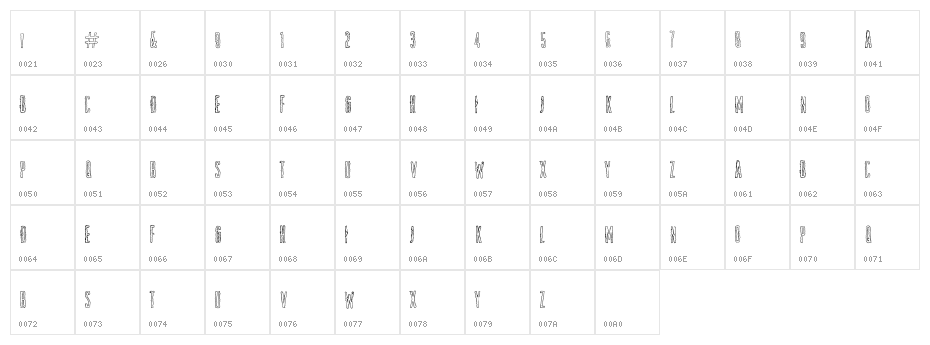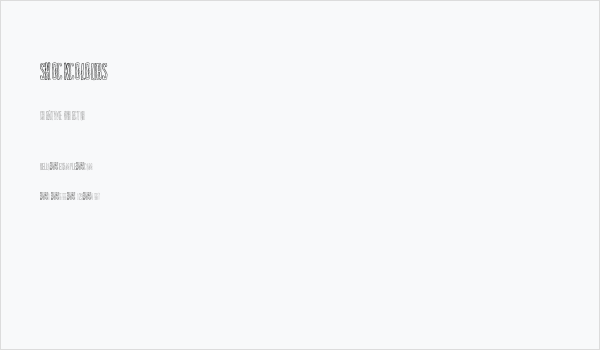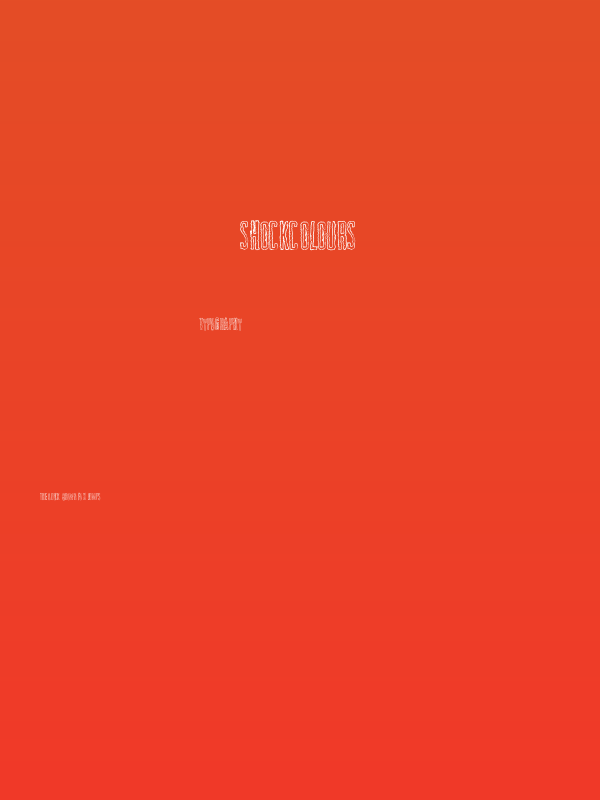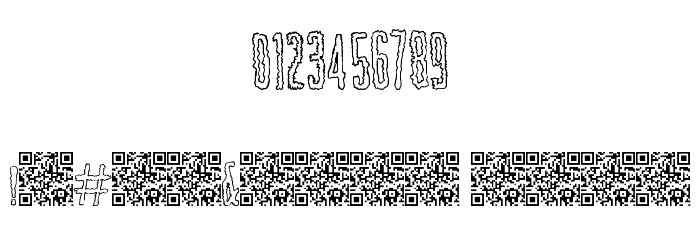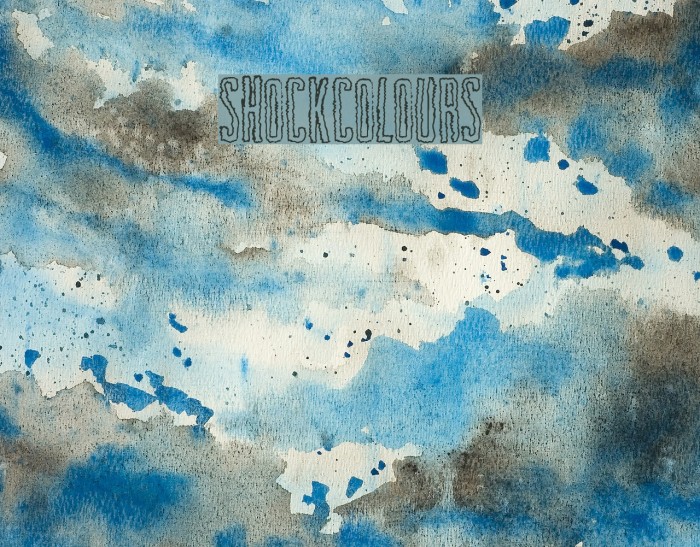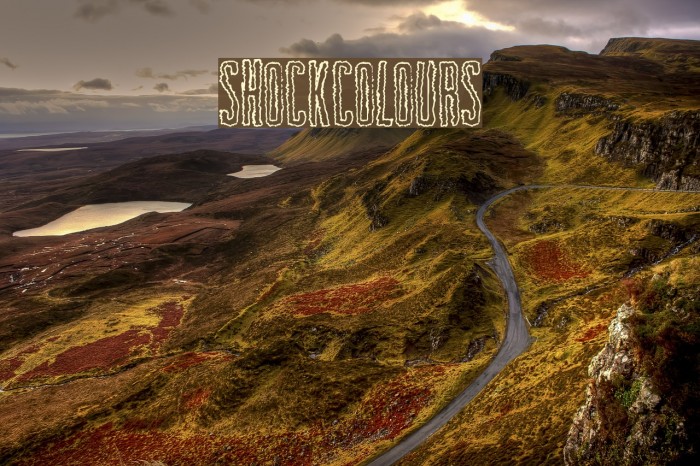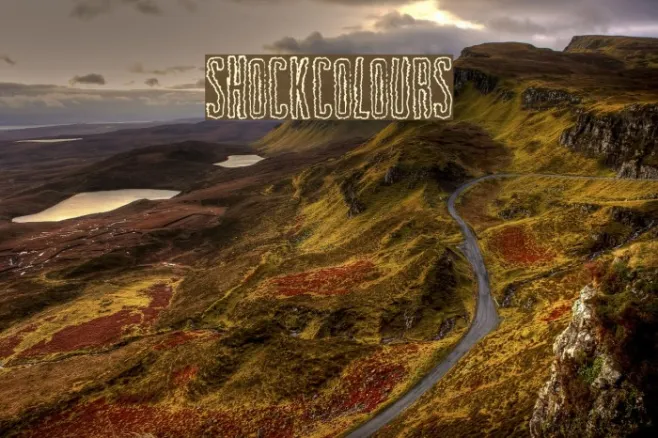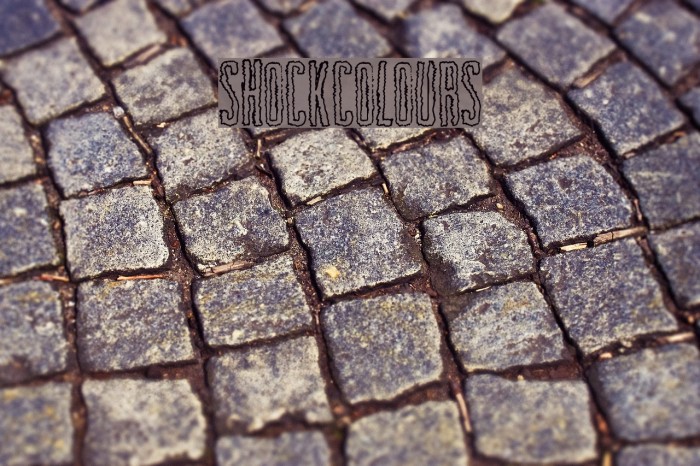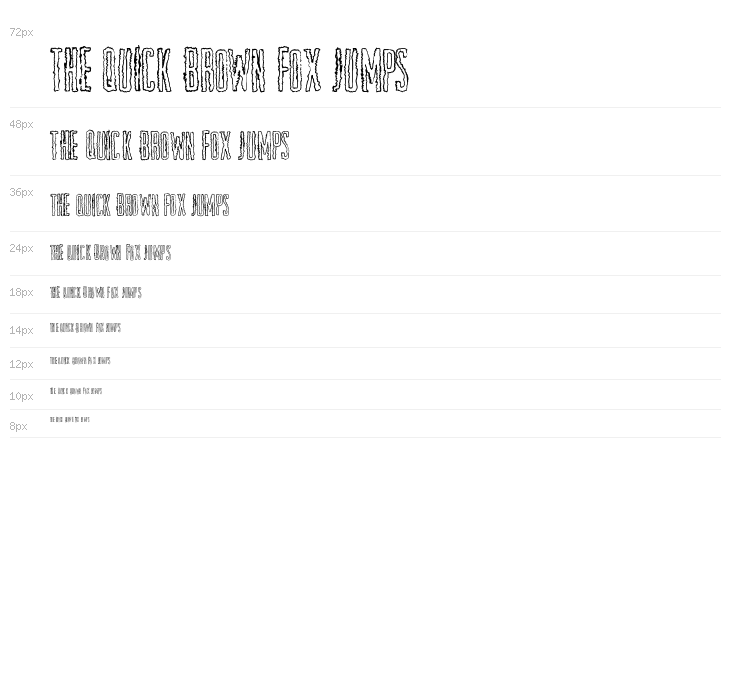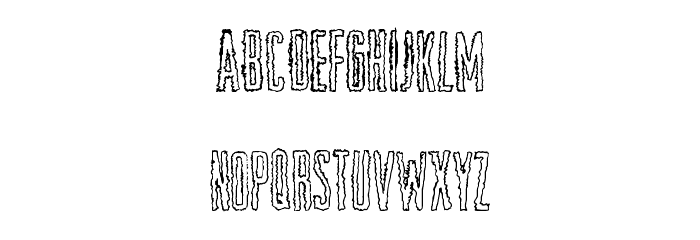
ShockColours Font
ShockColours Description
This font features a unique, jagged outline that gives each character a dynamic and energetic appearance. The irregular edges suggest a sense of movement and excitement, making it ideal for projects that require a bold and eye-catching design. The uppercase and lowercase letters maintain a consistent style, with numbers and special characters following the same aesthetic. The font's distinctive style is perfect for creating a sense of urgency or highlighting important information. Its decorative nature makes it stand out, ensuring that any text set in this font will capture attention.
| Proposed Projects | Posters, album covers, event flyers, and branding materials that require a striking visual impact. |